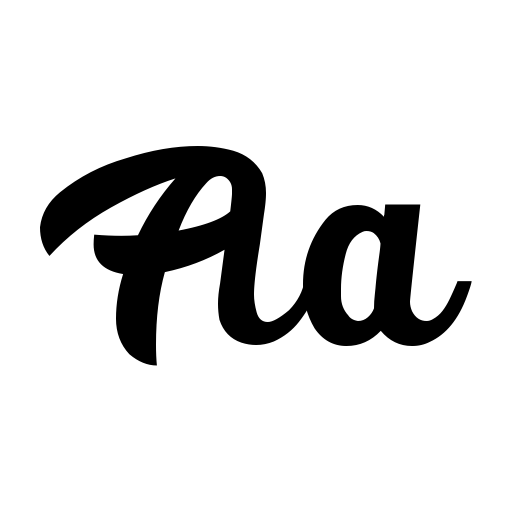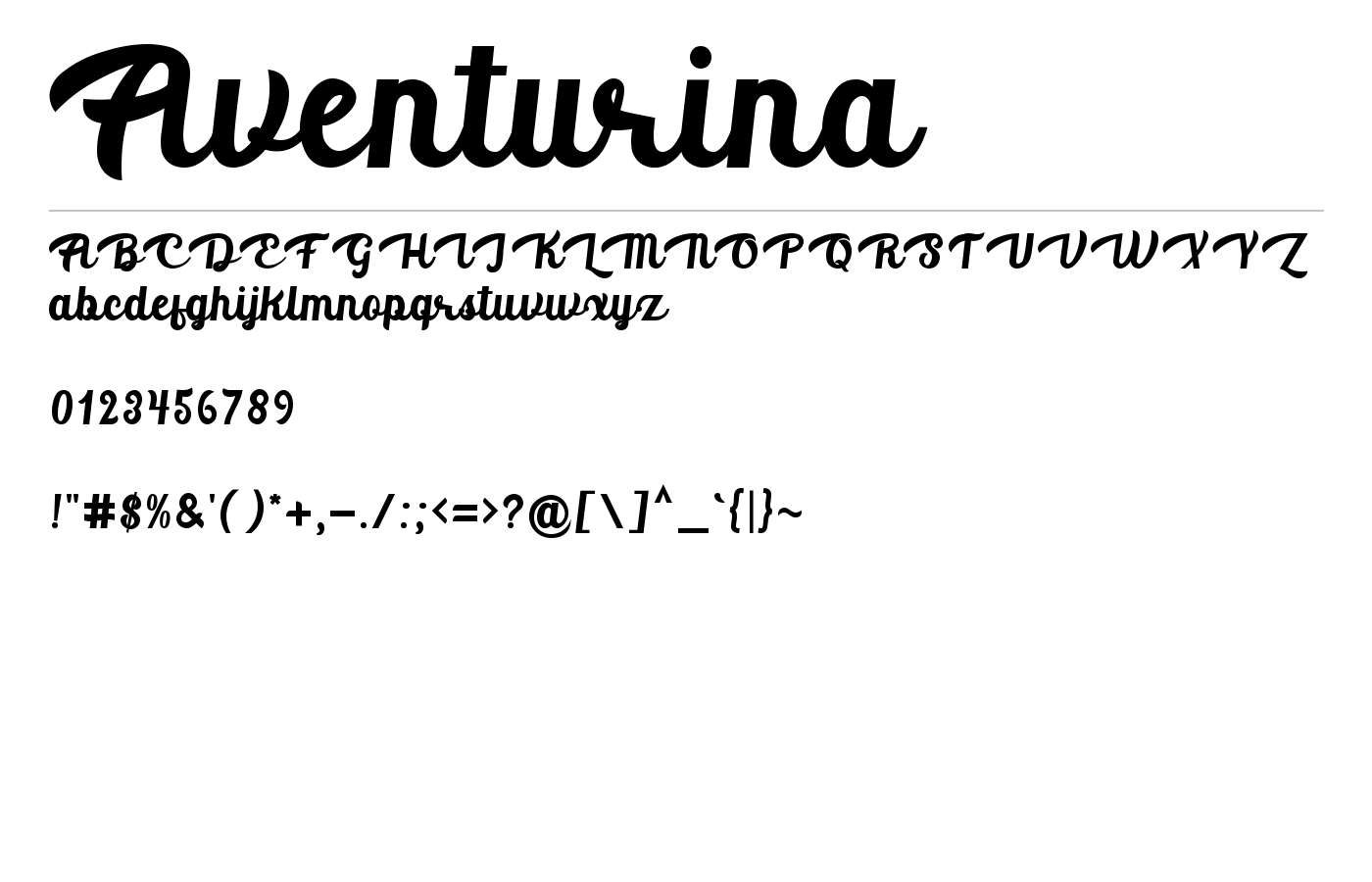
Aventurina is a bold, lively script font with a strong, smooth flow and high contrast between thick and thin strokes. Its connected letters and distinct calligraphic style give it a playful yet elegant personality, making it perfect for branding, logos, and headlines that need a friendly, dynamic touch. This font works especially well in designs aiming for a handcrafted or vintage vibe while maintaining clear readability.
Aventurina Font
About Aventurina Font
| Font family | Aventurina Font |
| Designer | SushiHueDesign |